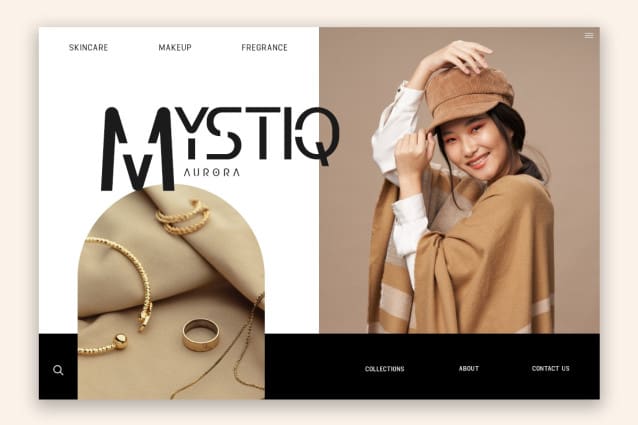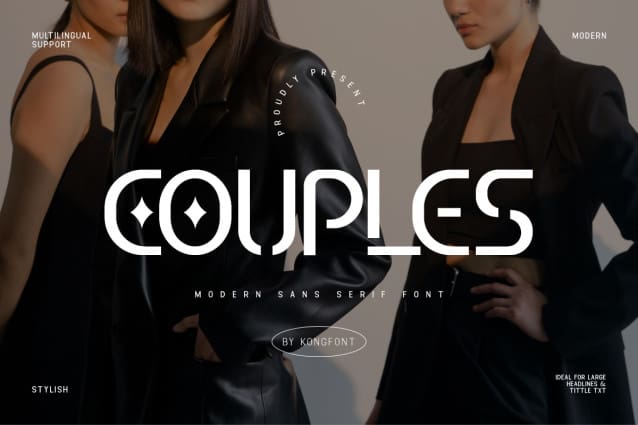
Couples Font
Couples Font, a modern sans serif font that exemplifies minimalistic elegance with a contemporary touch. Perfect for designers seeking a clean and straightforward aesthetic without sacrificing style, Couples is crafted to deliver clarity and readability in any context.
Couples is characterized by its neat, uncluttered lines and open forms, making it especially suited for web design, user interfaces, and modern branding where simplicity is key. The font’s versatile nature covers a variety of weights and styles, including bold and italic variations, ensuring flexibility across different mediums and applications.
Whether it’s for professional presentations, dynamic digital ads, or cohesive corporate branding, Couples enhances your message with its approachable and attractive appearance. This font’s straightforward design not only supports legibility but also elevates the overall look of your textual content.
Couples Font is the go-to sans serif font for designers who value modernity and minimalism in their typographic work.